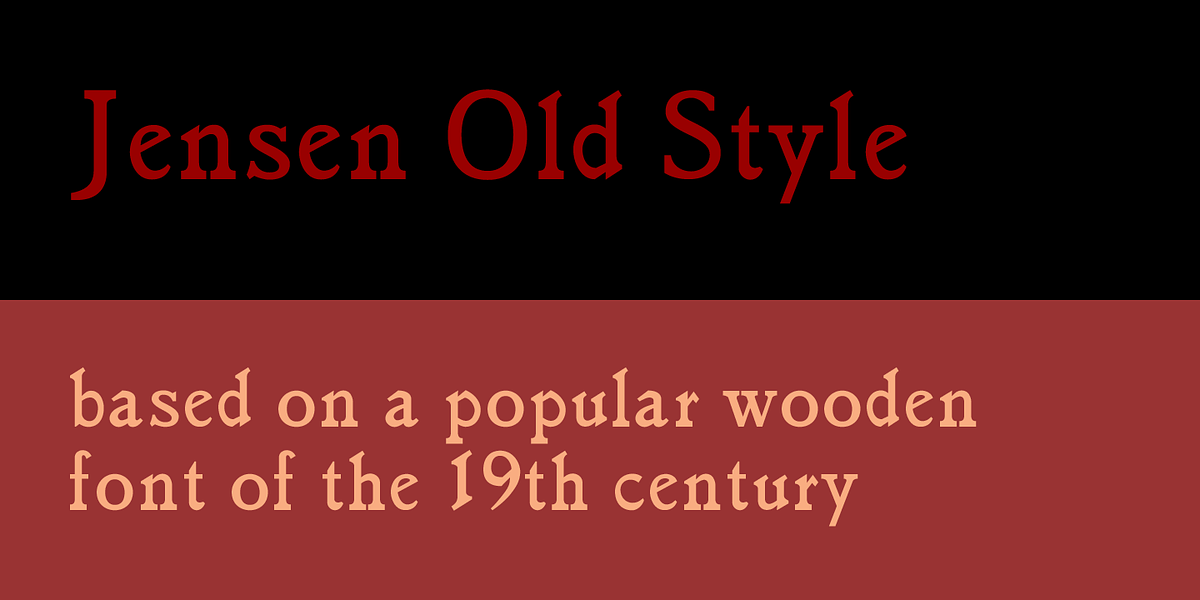
Jensen Old Style
This font is a revival of a popular old-style serif typeface from the 19th century. Its design is inspired by the work of Nicholas Jenson, a renowned printer who lived in the late 15th century. The font was also recreated in a slightly different version by William Morris around 1890. It's well-suited for text applications such as books and publications due to its classic and legible design.